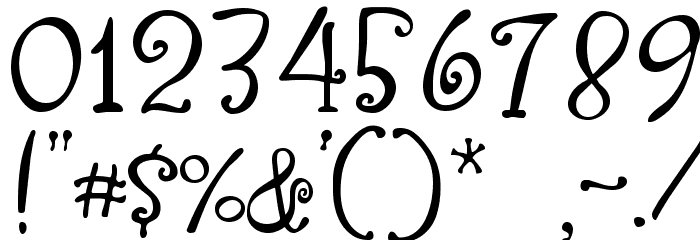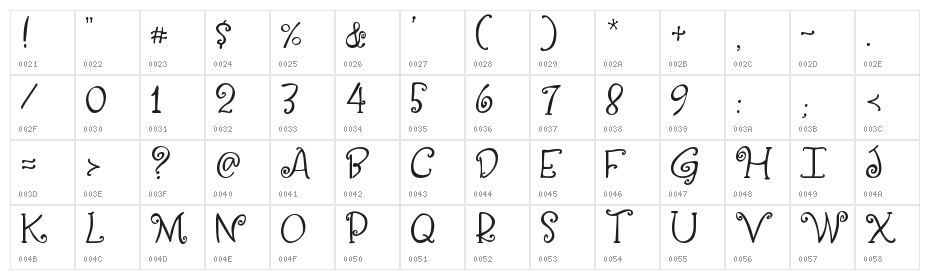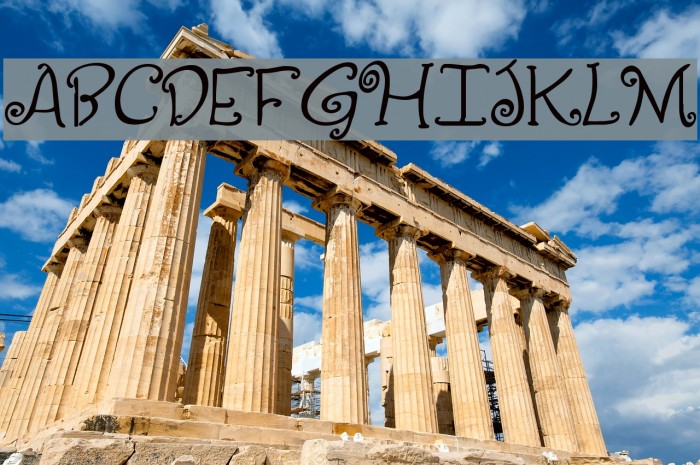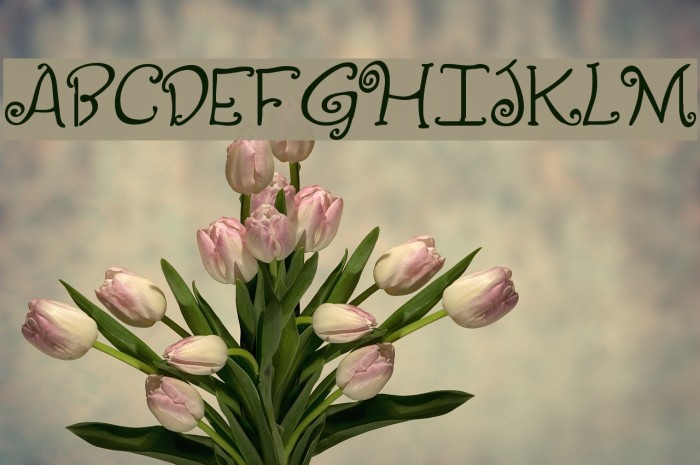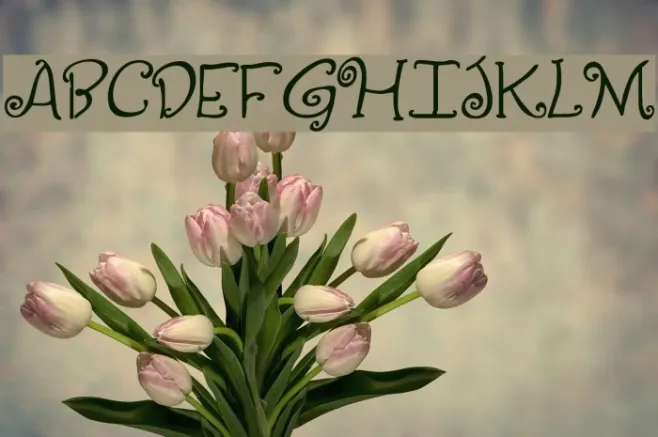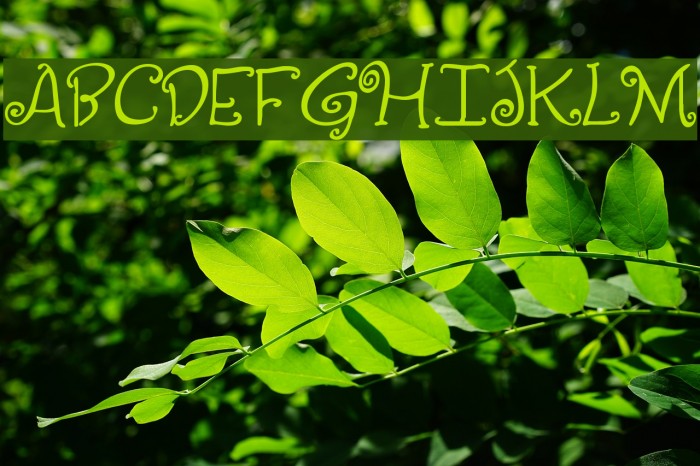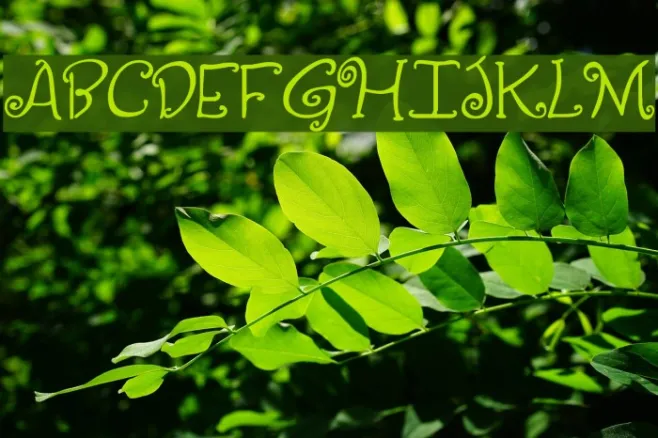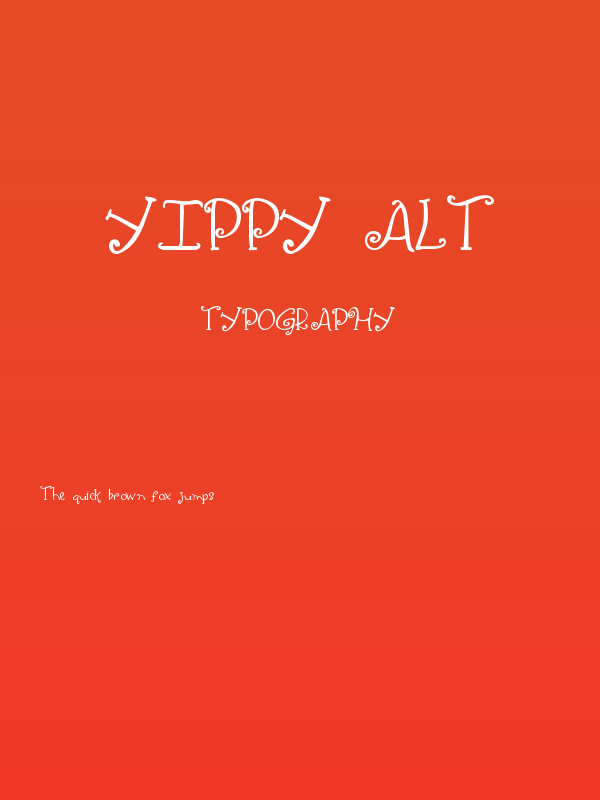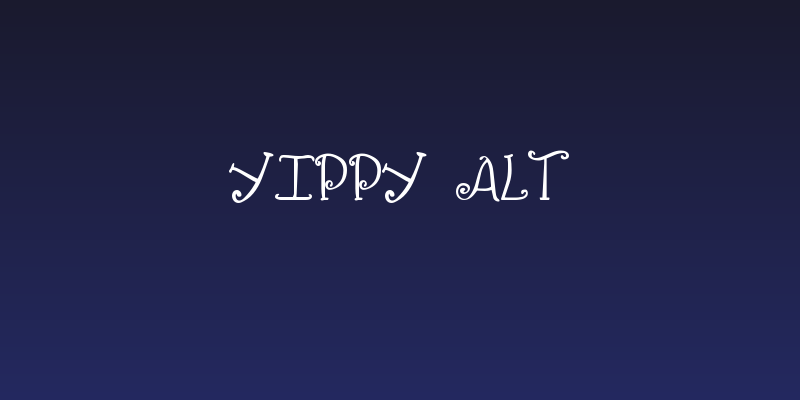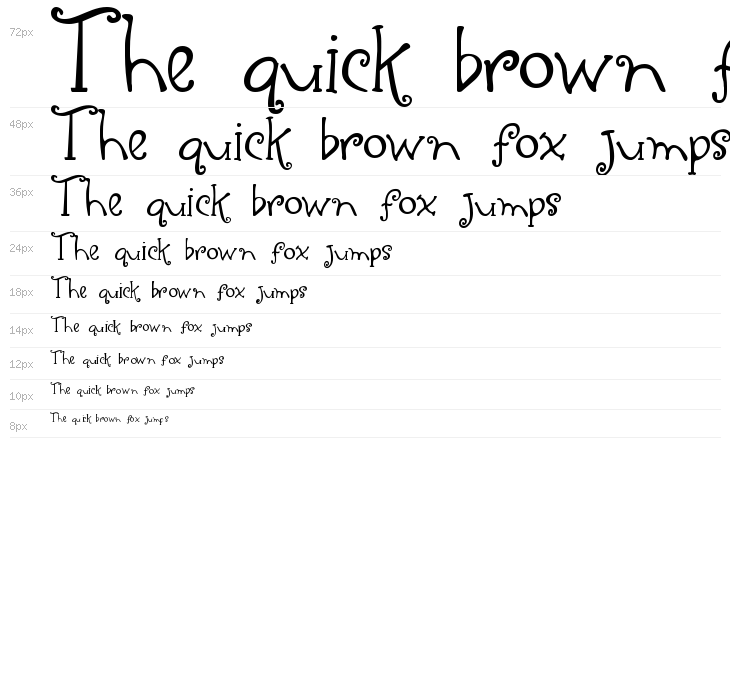
Yippy Alt Font
Yippy Alt Description
This playful and whimsical font features a unique and quirky design with curly and swirly elements. Each character is crafted with a sense of fun, incorporating loops and curls that give it a lively and animated appearance. The uppercase letters are bold and prominent, while the lowercase letters maintain a consistent style with a slightly more relaxed form. Numbers and special characters follow the same playful theme, making this font ideal for creative and informal projects. Its distinctive style is sure to capture attention and add a touch of personality to any design.
Overall StylePlayful, Whimsical
Use CaseHeadlines, Logos, Creative projects
Proposed ProjectsIdeal for children's books, playful branding, party invitations, and creative posters.